Mastering Bangla Font Logo Design: A Creative Journey
Logo Design Concept
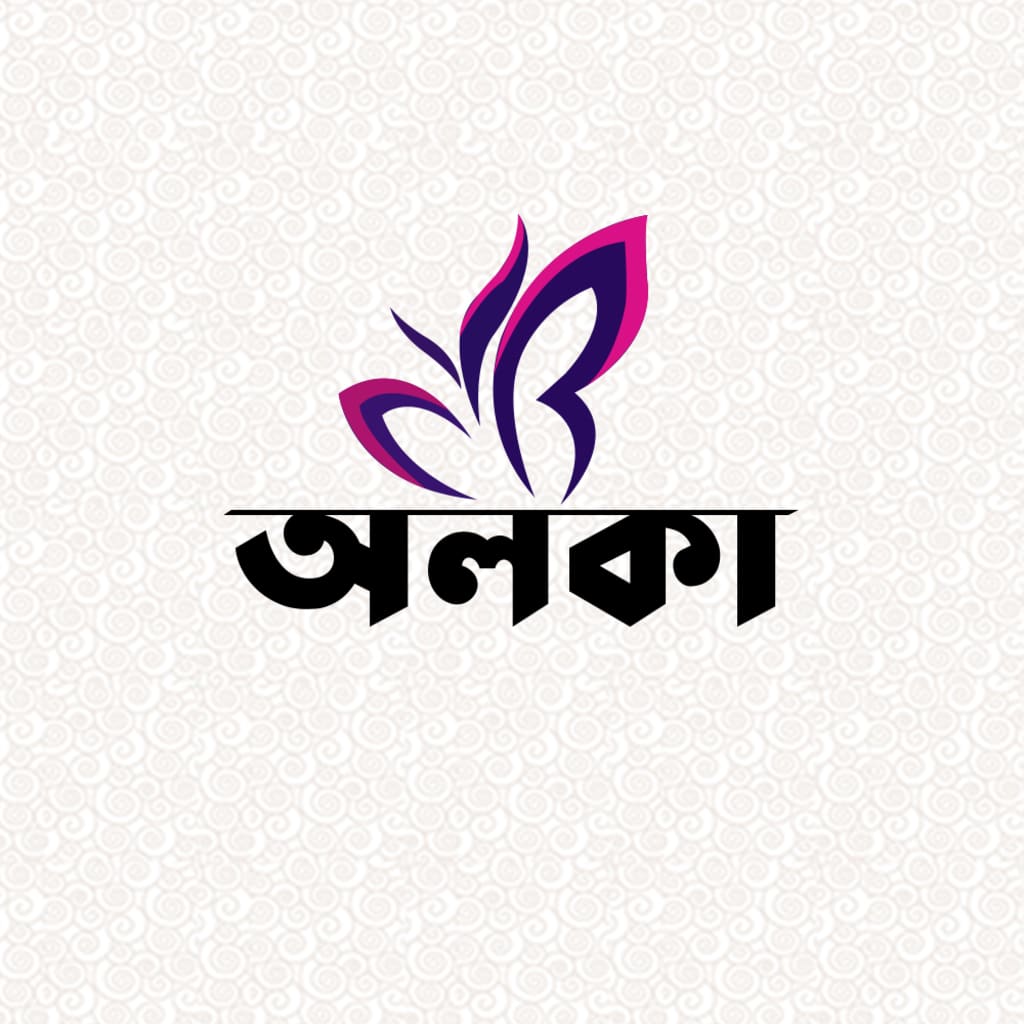
In the dynamic world of branding and visual communication, logo design stands as a paramount element. A logo encapsulates a brand’s identity, values, and essence in a single, striking image. When it comes to Bangla font logo design, the challenge lies in harmoniously blending the intricate beauty of the script with the modern demands of visual aesthetics. In this blog, we will delve into the art and intricacies of Bangla font logo design, exploring its significance, challenges, and creative process.
The Significance of Bangla Font Logos:
Language is a powerful tool, and the script in which it’s expressed is equally significant. The Bangla script, with its flowing curves and artistic strokes, carries a rich cultural heritage. A Bangla font logo has the potential to evoke emotions, spark memories, and create a strong connection with the audience. It’s not merely a combination of letters; it’s a piece of art that tells a story.
Cultural Resonance and Emotional Connection:
Bangla font logos possess an innate ability to evoke a deep emotional connection among the people who share this linguistic and cultural heritage. For those who read and understand the Bangla script, encountering a logo that incorporates it creates an immediate sense of familiarity and belonging. This connection taps into memories, shared experiences, and the cultural ethos that define individuals' lives. It's not just a logo; it's a bridge that links the brand to its audience through a shared cultural lens.
Challenges in Bangla Font Logo Design:
Designing a logo in Bangla script presents unique challenges that designers must address with finesse. One major challenge is maintaining legibility. The intricate nature of the script can sometimes lead to readability issues when scaled down or used in various contexts. Finding the right balance between aesthetics and legibility is crucial.
Additionally, cultural connotations play a significant role. Every curve and line carries meaning in the script, and a designer must be well-versed in the cultural context to ensure the logo is respectful and resonates with the target audience.
The Creative Process:
Creating a memorable Bangla font logo involves a multi-step creative process that balances artistic vision with practicality.
1.Research and Understanding: Dive deep into the brand’s values, mission, and target audience. Understand the cultural nuances associated with the Bangla script and how they align with the brand.
2.Sketching and Ideation: Begin with pen and paper. Sketch various iterations of the logo, exploring different ways to incorporate the Bangla script creatively. Experiment with different fonts, styles, and layouts.
3.Typography Selection: Choose a Bangla font that reflects the brand’s personality. Consider readability, uniqueness, and the emotion it conveys.
4.Simplicity and Versatility: Keep the design simple. A cluttered logo might lose its impact. Ensure that the logo looks equally captivating in black and white, small and large sizes, and across different mediums.
5.Cultural Relevance: Integrate cultural elements intelligently. Use symbols or shapes that are relevant to the brand’s identity and resonate with the audience.
6.Color Palette: Select colors that evoke the right emotions. Be mindful of the cultural significance of colors in Bangla culture.
7.Feedback and Iteration: Share your concepts with peers or stakeholders. Feedback can provide fresh perspectives and help refine your design.
8.Digitization: Once you’ve settled on a design, bring it to life digitally. Use design software to refine lines, curves, and proportions.
9.Test and Adapt: Test the logo across various platforms and contexts. Make adjustments as needed to ensure optimal legibility and impact.
Conclusion:
Designing a Bangla font logo is a creative journey that requires a deep understanding of culture, typography, and design principles. It’s a delicate balance between honoring tradition and embracing modernity. A well-crafted Bangla font logo has the power to become a timeless representation of a brand’s identity, leaving a lasting impression on its audience and standing as a testament to the intricate beauty of the Bangla script.